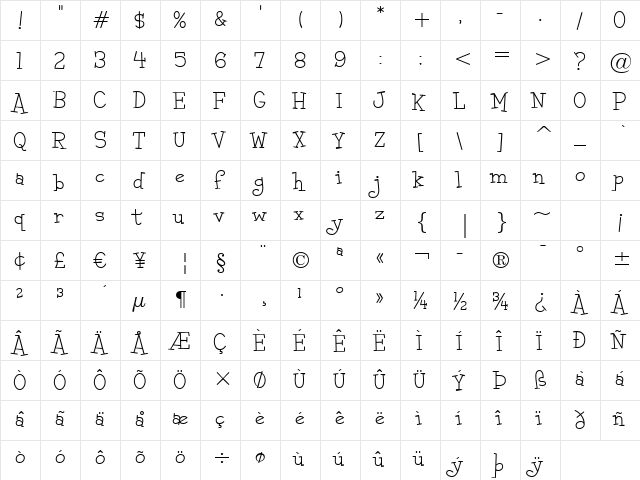
Malihini Tahitian BTN Lt Regular
Design Context for Malihini Tahitian BTN Lt Typeface
Malihini Tahitian BTN Lt takes a measured approach to typography — its balanced proportions and neutral character make it a reliable workhorse for both digital and print work. Its slender proportions lend an understated elegance to any composition.